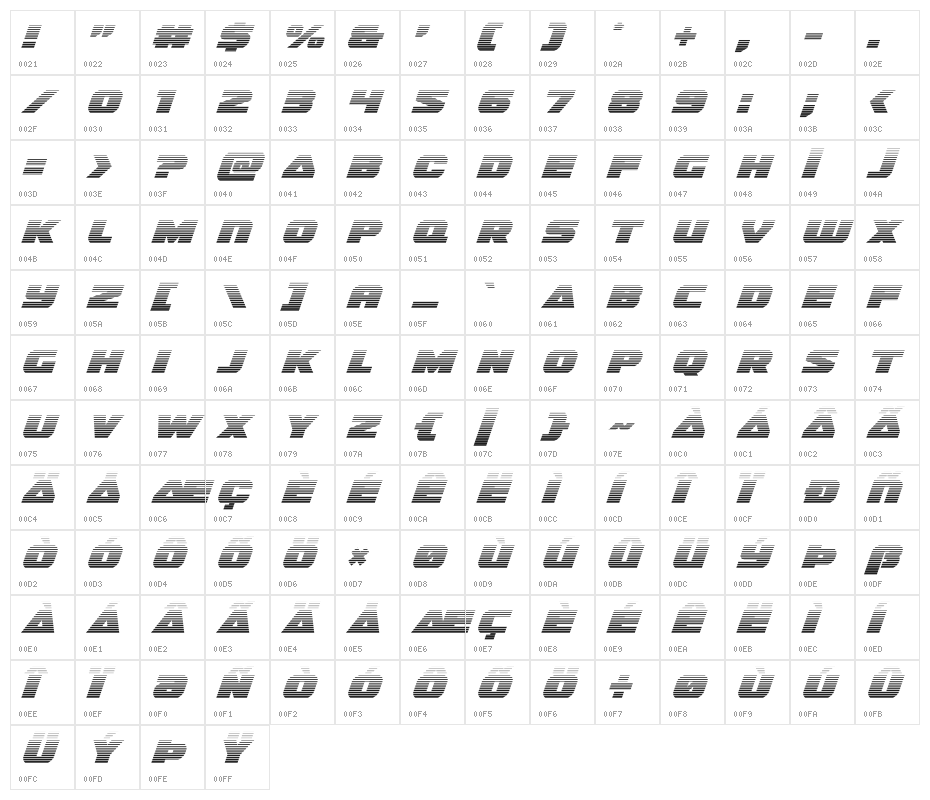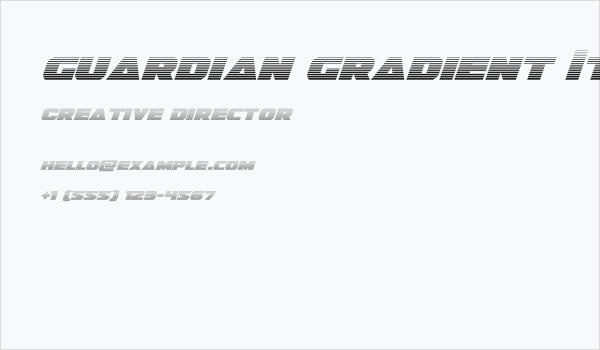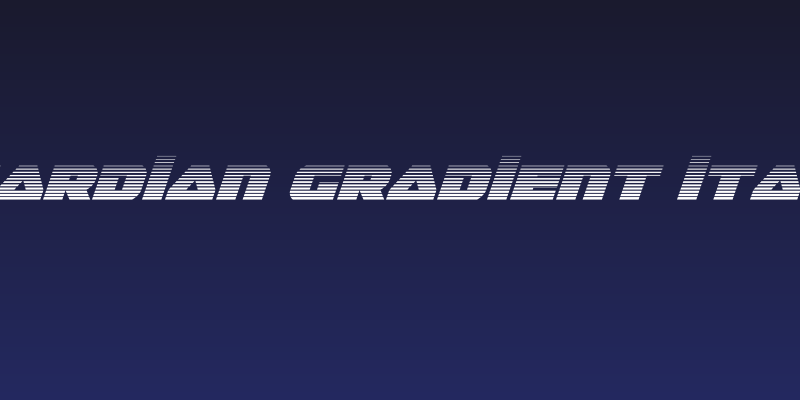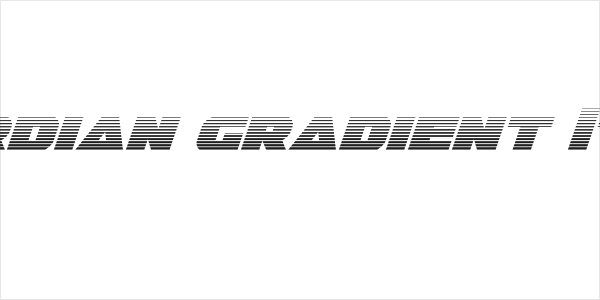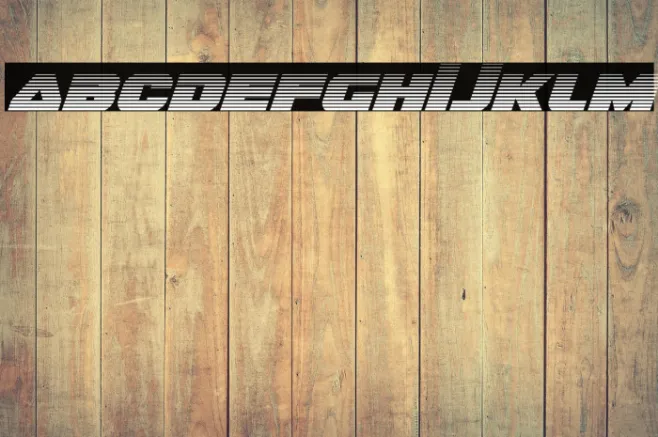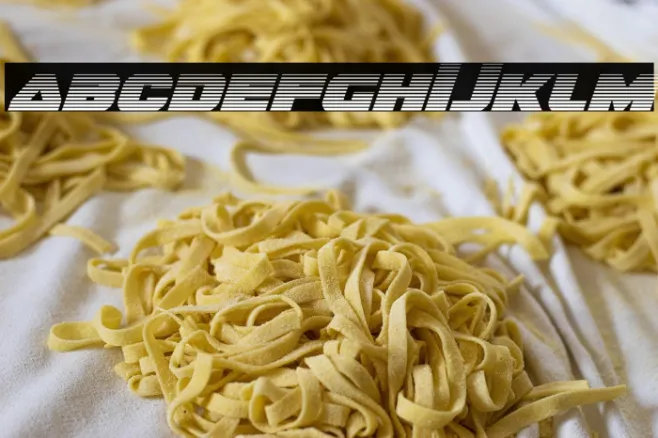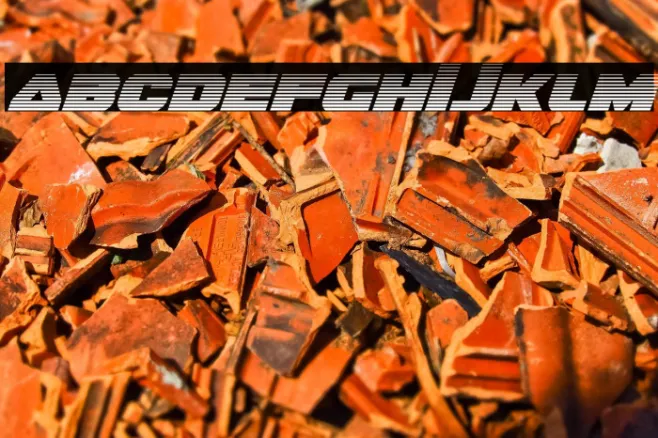
Guardian Gradient Italic Font
Guardian Gradient Italic Description
This font features a dynamic and futuristic design with a distinct italic slant. The characters are composed of horizontal lines that create a gradient effect, giving a sense of movement and speed. The uppercase and lowercase letters maintain a consistent style, with sharp angles and a bold presence. Numbers and special characters are designed to match the overall aesthetic, ensuring uniformity across all glyphs. The font's unique appearance makes it stand out, ideal for projects that require a modern and edgy look.
| Proposed Projects | Ideal for sports branding, technology-related designs, and modern advertising campaigns. |